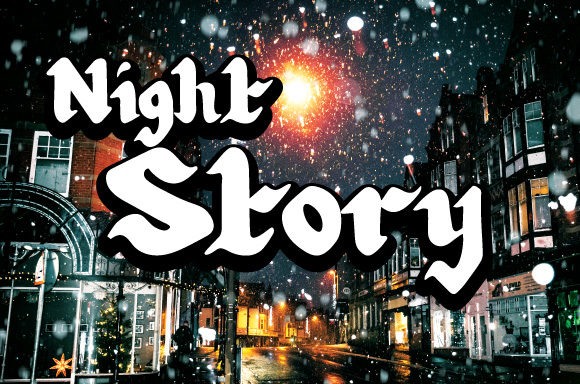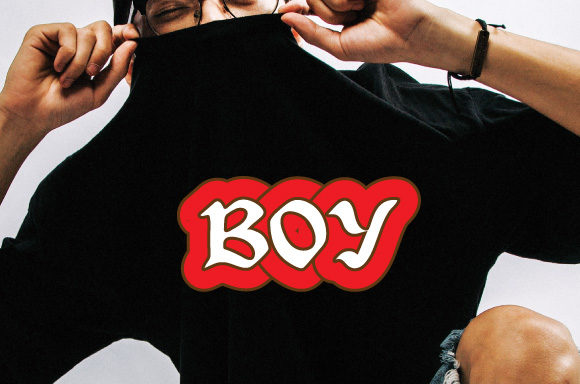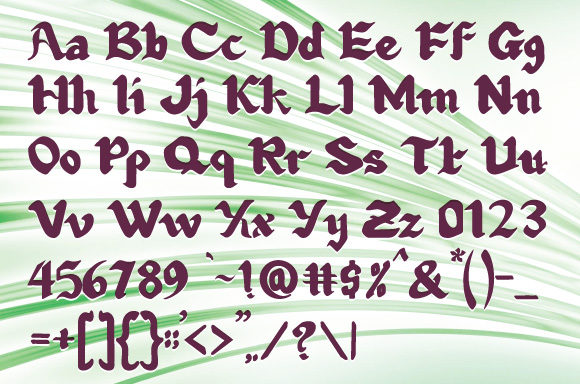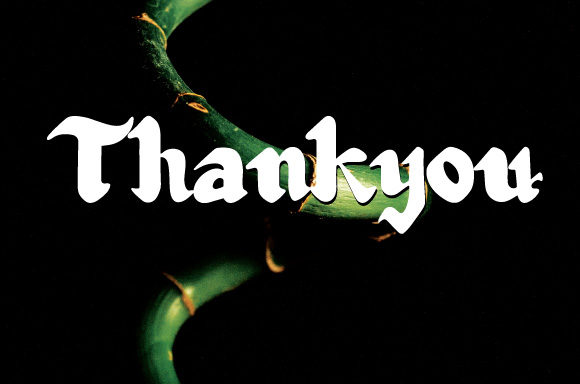
Discover the Unique Charm of Art Design Font: Elevate Your Creative Projects
Are you on the hunt for a font that adds a dash of personality to your designs? Look no further than the Art Design Font. This incredibly cool and quirky display font is making waves in the design community, and for good reason. Its clean and stylish aesthetic makes it the perfect fit for a wide range of projects, from logos and branding to social media graphics and crafty DIY endeavors.
What Makes Art Design Font Stand Out?
Art Design Font is not just another font; it’s a statement piece. Its unique blend of modern cleanliness and quirky charm sets it apart from more traditional fonts. Here are a few reasons why Art Design Font should be on your radar:
- Versatility: Whether you’re working on a professional branding project or a fun DIY craft, Art Design Font adapts seamlessly. Its versatility is one of its most appealing qualities, making it suitable for a wide array of applications.
- Aesthetic Appeal: The font’s clean lines and stylish curves give it a sophisticated look that’s hard to ignore. It’s perfect for designers who want to add a touch of elegance to their work without sacrificing personality.
- Quirky Charm: In a world of standard fonts, Art Design Font brings a breath of fresh air with its quirky charm. It’s ideal for projects that require a bit of whimsy and character.
When it comes to logos and branding, the font you choose can make all the difference. Art Design Font, with its clean and stylish appearance, is an excellent choice for businesses looking to make a memorable impression. Here are a few ways it can enhance your branding:
- Memorability: A unique font like Art Design can help your brand stand out in a crowded market, making it more memorable to potential customers.
- Professionalism: Despite its quirky nature, Art Design Font exudes professionalism. It’s sophisticated enough for corporate brands but also versatile enough for startups and small businesses.
- Brand Personality: If your brand has a playful or artistic side, Art Design Font can help convey that personality. It’s a great way to humanize your brand and connect with your audience on a more personal level.
Enhance Your Social Media Presence
Social media is all about standing out and grabbing attention. With Art Design Font, you can create eye-catching graphics that stop scrollers in their tracks. Here are some ideas for using Art Design Font on social media:
- Post Headers: Use Art Design Font to create bold, eye-catching headers for your posts. This can help increase engagement and make your content more shareable.
- Quotes and Statements: Overlay quotes or statements with Art Design Font to add a touch of personality to your posts. This can be a great way to highlight key messages or inspire your followers.
- Branding Consistency: If you’re using social media to promote your brand, Art Design Font can help maintain a consistent look across all your platforms.
Perfect for Crafty DIY Projects
Art Design Font isn’t just for professional designers. It’s also perfect for crafters and DIY enthusiasts looking to add a personal touch to their projects. Here are some ideas:
- Crafting Labels: Use Art Design Font to create custom labels for your craft projects. This can add a professional touch to your handmade goods.
- Paper Crafts: Whether you’re making cards, scrapbooking, or creating other paper crafts, Art Design Font can add a stylish element to your work.
- DIY Signage: For DIY signage projects, Art Design Font can help you create eye-catching signs that are sure to draw attention.
| Font Name | Art Design Font |
Art Design Font is a game-changer for designers and crafters alike. Its unique blend of style, versatility, and quirkiness makes it an invaluable tool for anyone looking to elevate their creative projects. Whether you’re working on professional branding, social media graphics, or DIY crafts, Art Design Font is sure to make your work stand out. So why settle for ordinary when you can make a statement with Art Design Font?